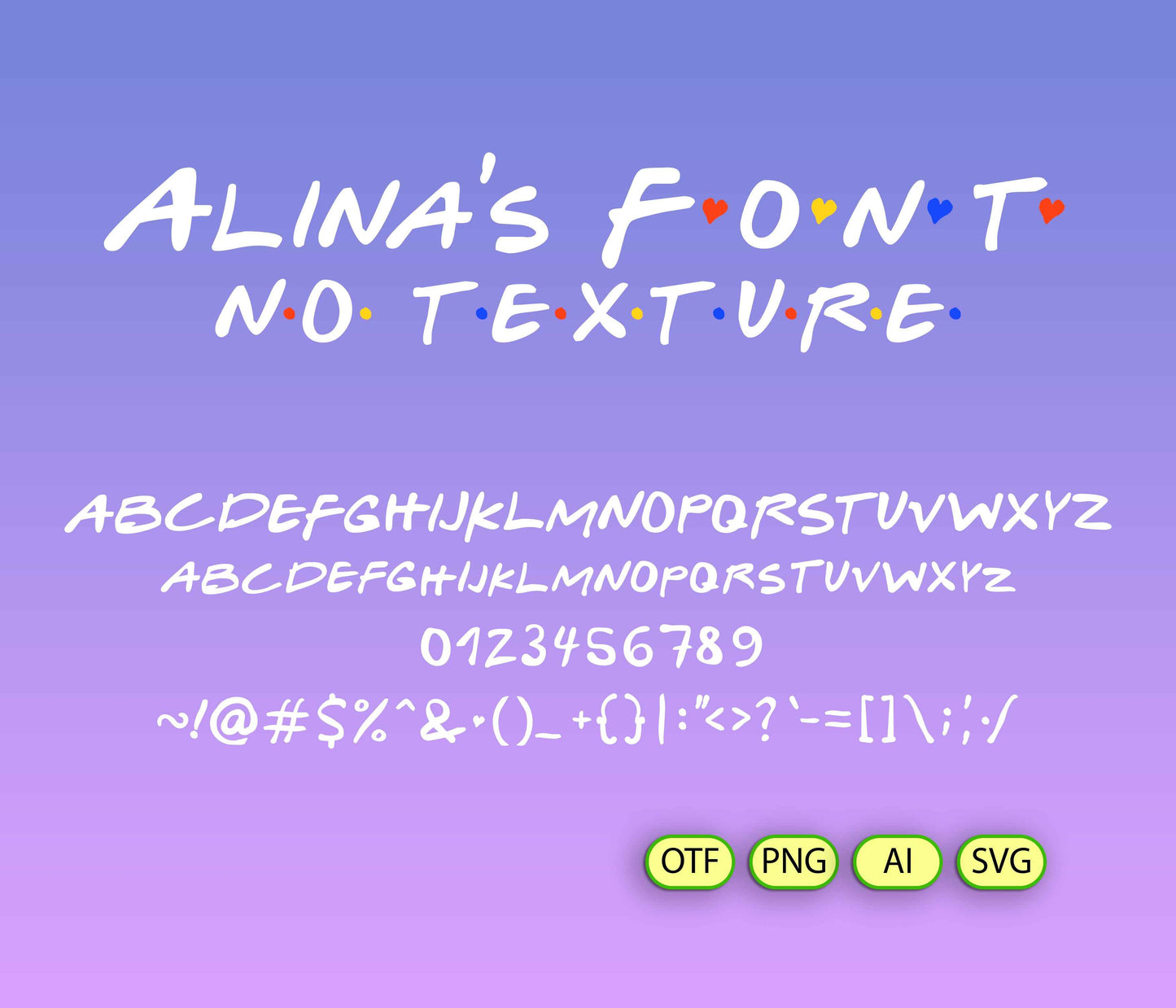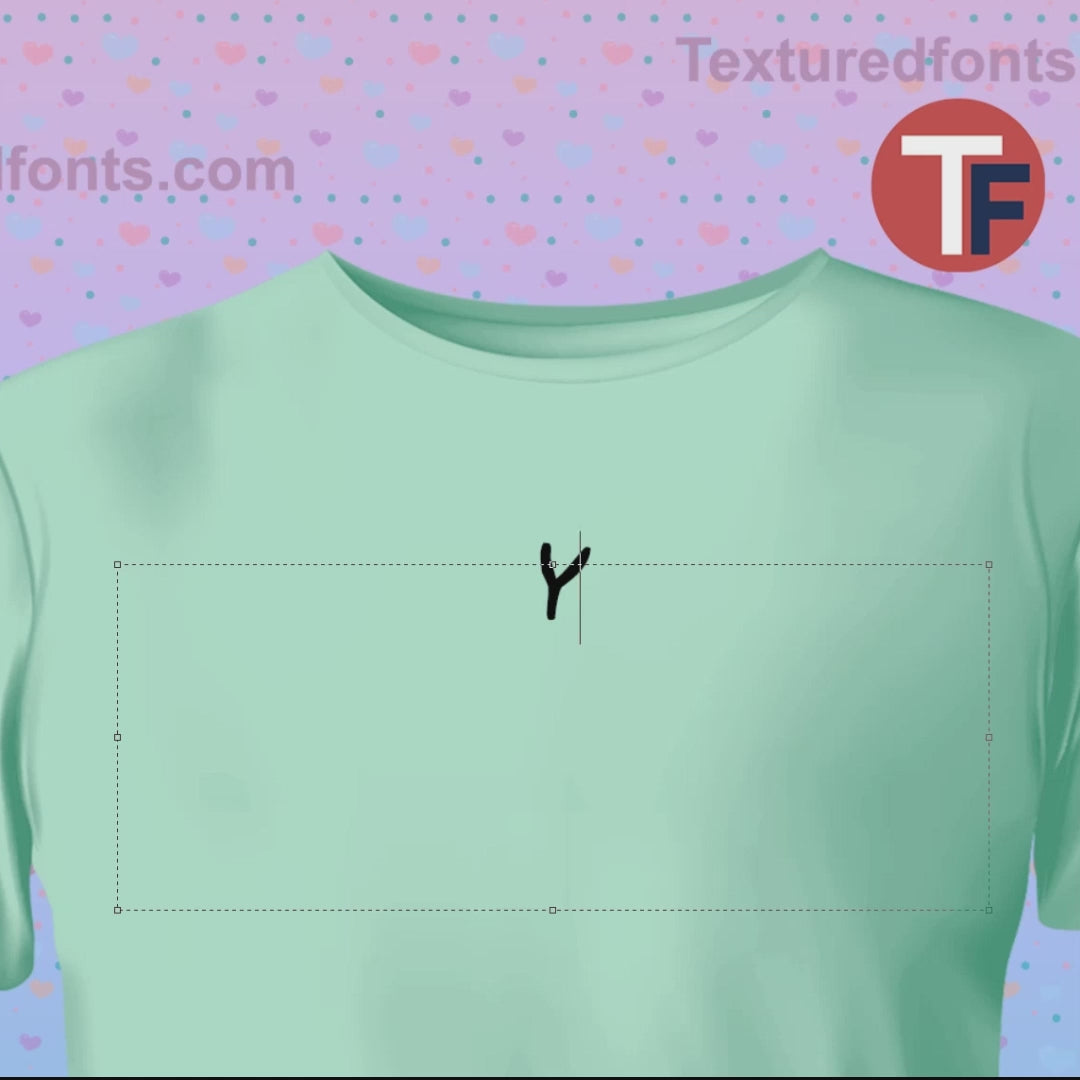
Classic Sitcom Font
Classic Sitcom Font: Nostalgic and Iconic
Celebrate the classic charm of your favorite 90s TV series with a font that captures the humor and heartwarming style of this beloved sitcom. The Classic Sitcom font is ideal for projects that call for a touch of 90s nostalgia mixed with the coziness of café culture.
The font features playful, rounded characters reminiscent of the iconic logo with its colorful dots between the letters. Its friendly and inviting design makes it perfect for merchandise, fan creations, and any project aimed at capturing the essence of the series.
Whether you’re designing a themed party invitation, creating promotional materials for a sitcom-themed event, or crafting unique apparel, the Classic Sitcom font brings a warm, familiar feel to your projects, resonating with fans around the world.